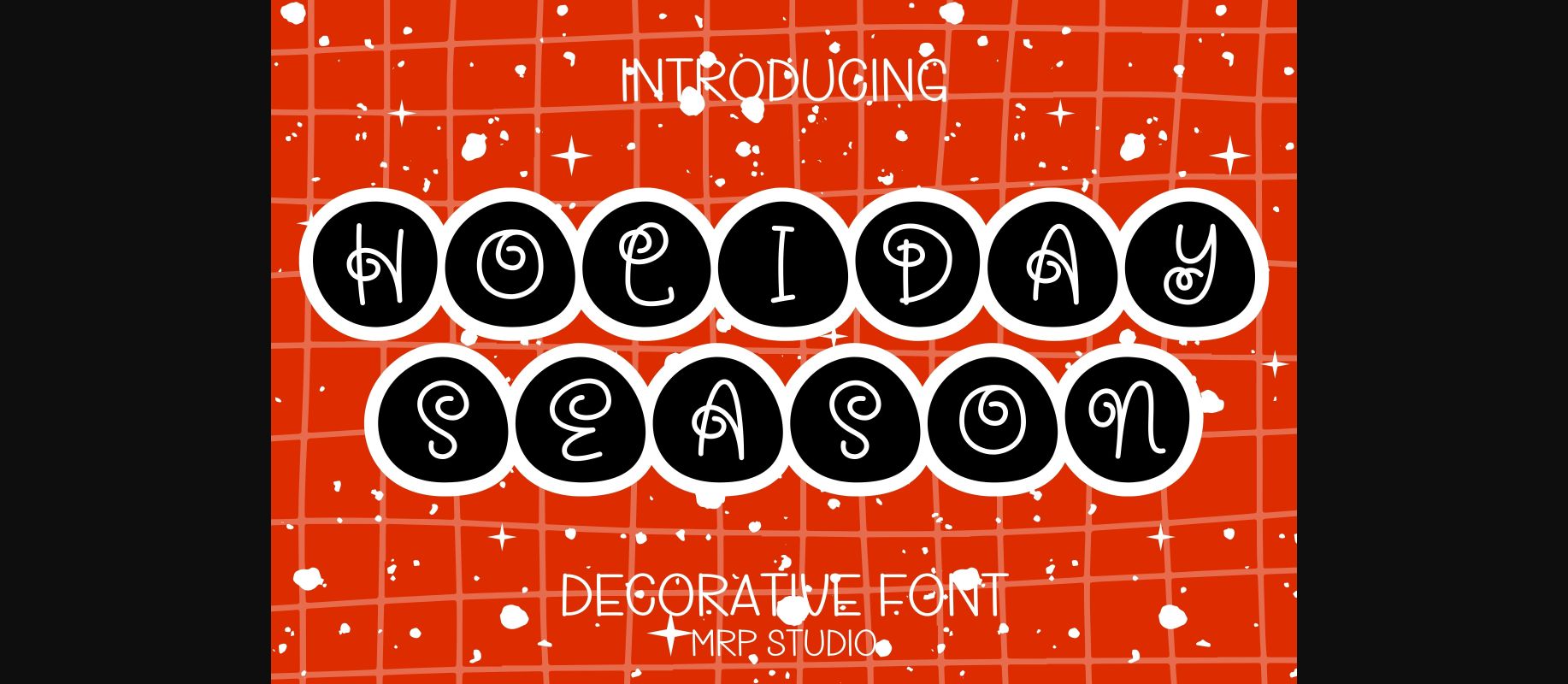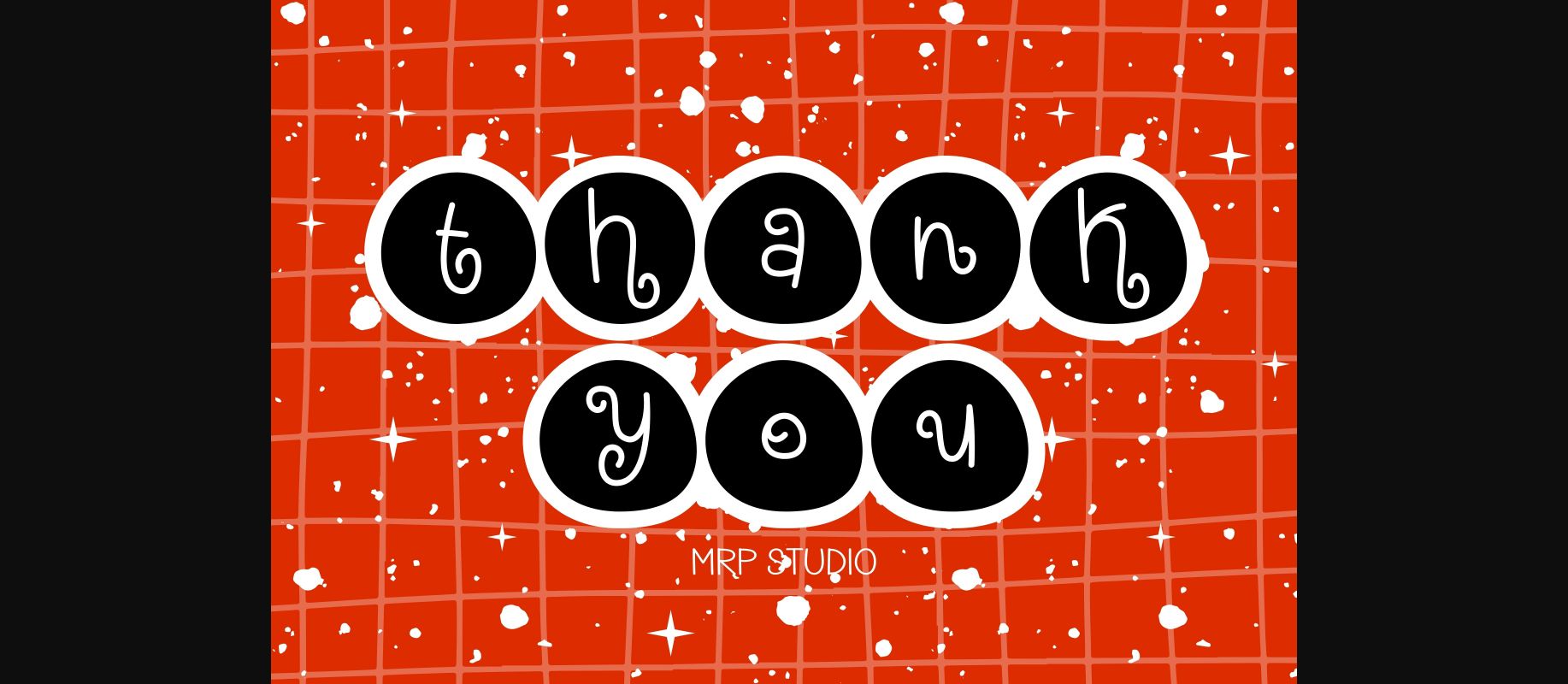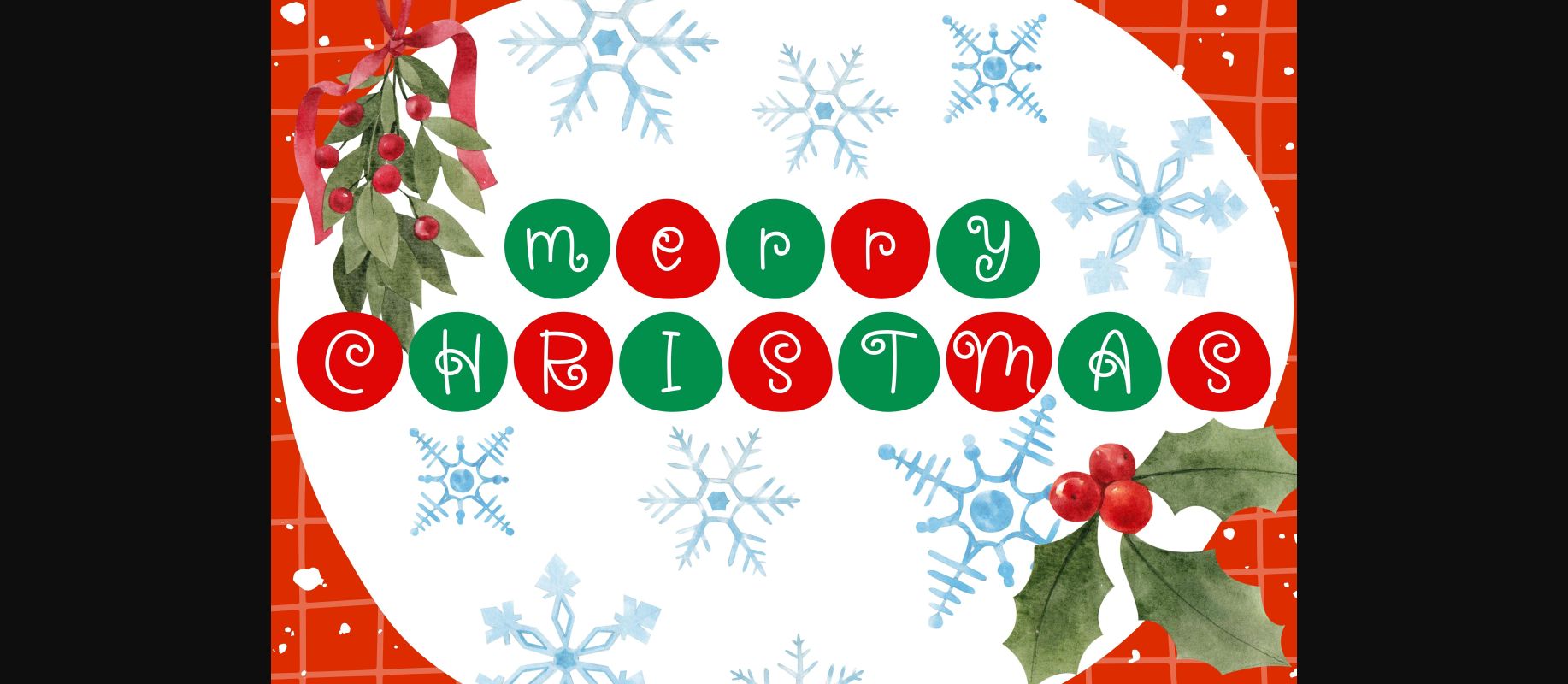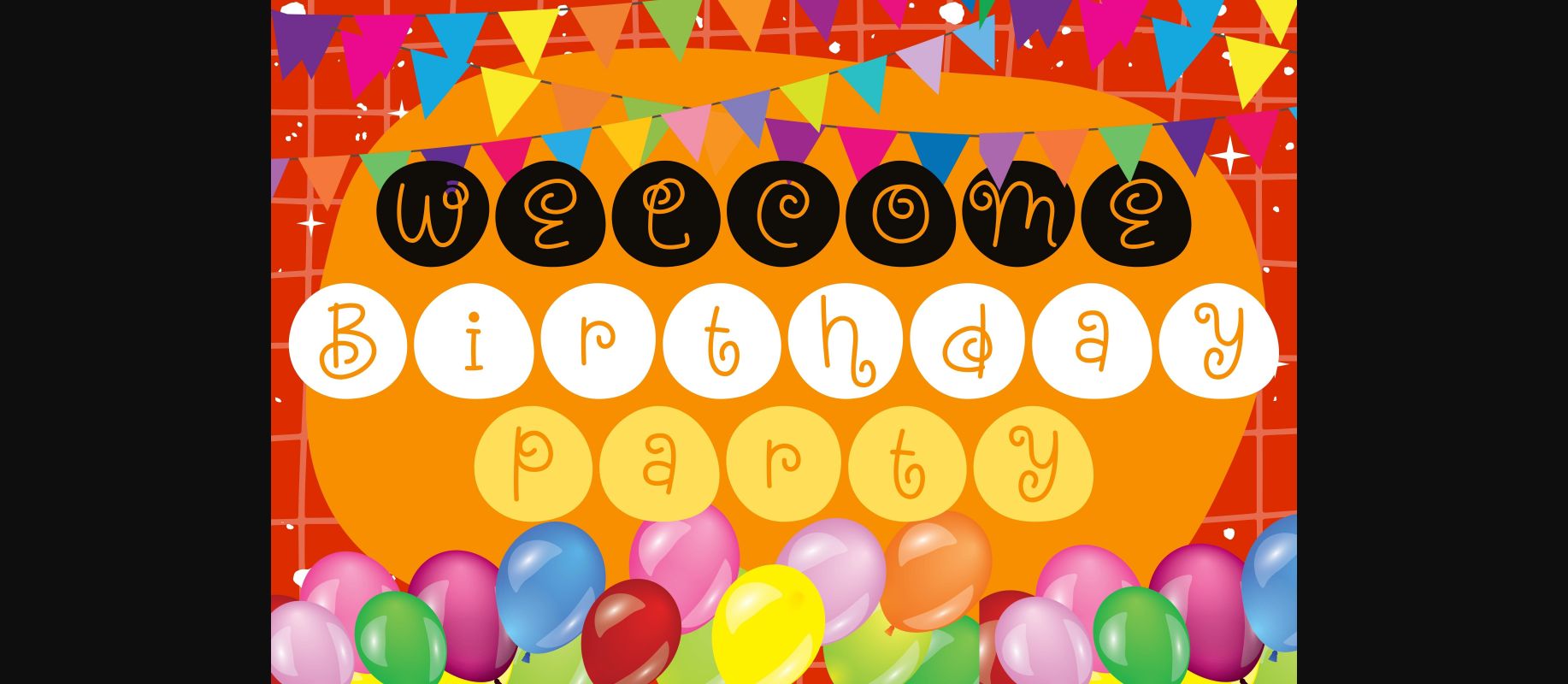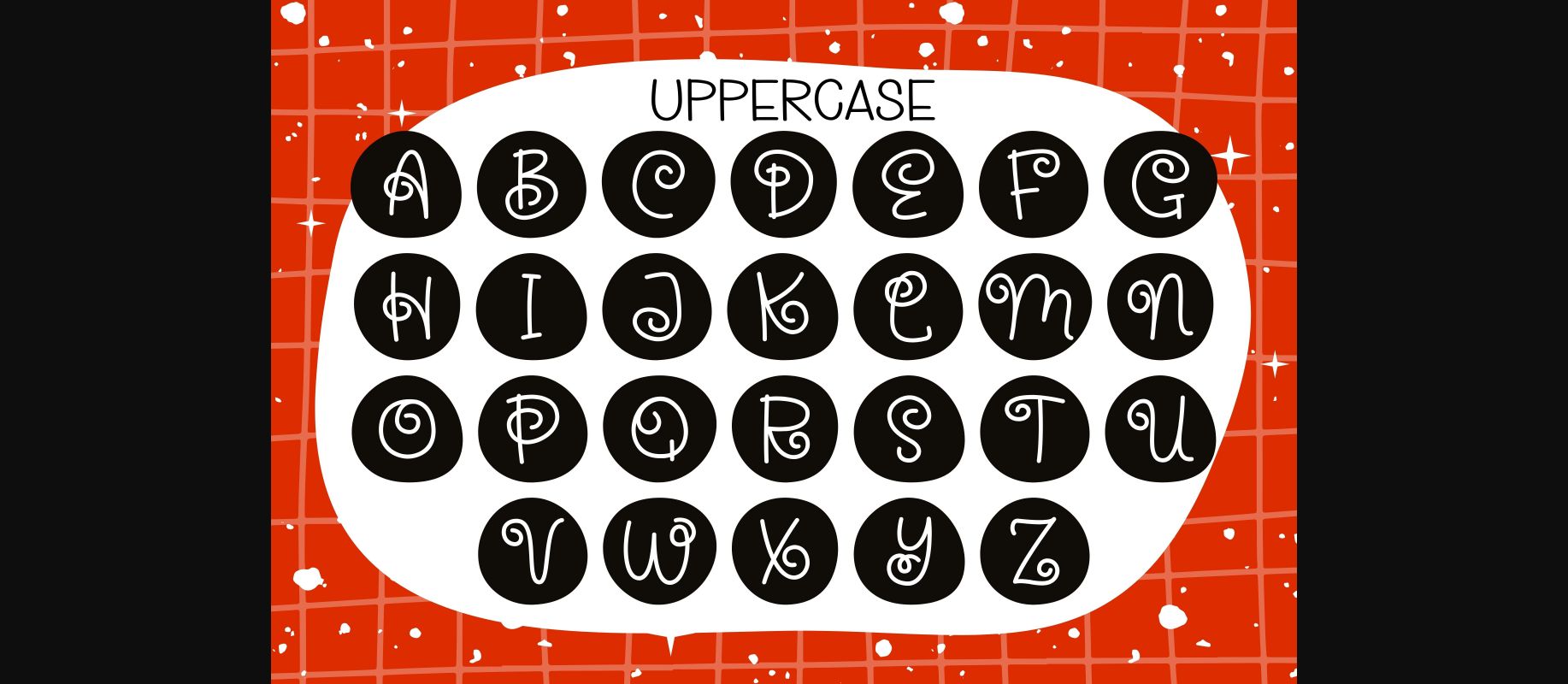
About Holiday Season Font
Holiday Season is designed in a cute and adorable decorative font style. It would be awesome to your colorful Christmas projects, mom projects, back-to-school, party decorations, invitations, posters, blogs, clothing, greeting cards, social media posts or anything that needs a friendly touch. Let’s try it and add it to your creative ideas and notice how it makes them stand out!